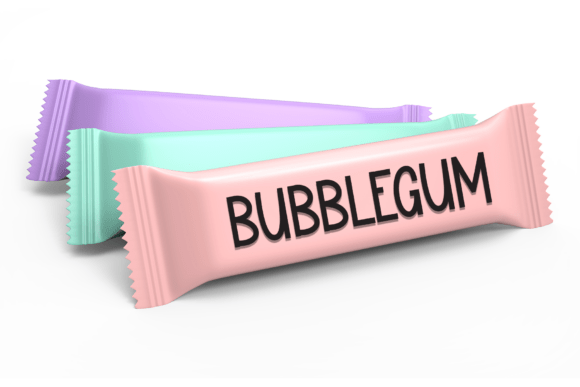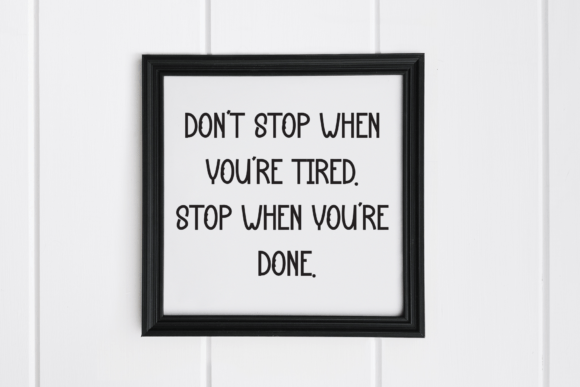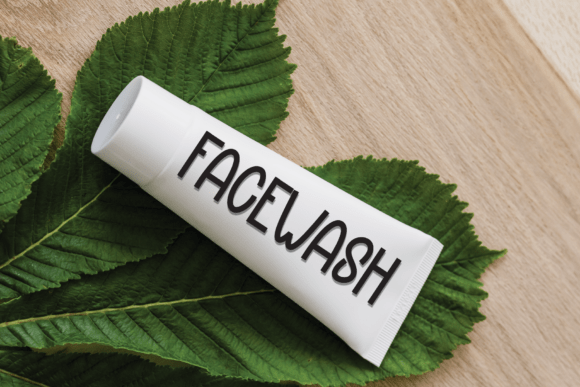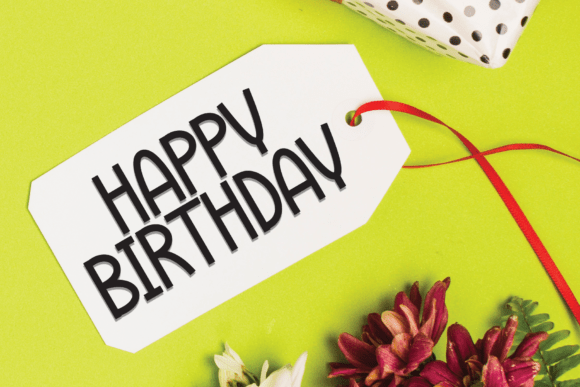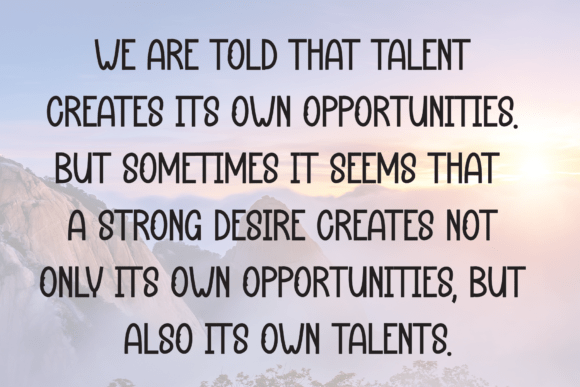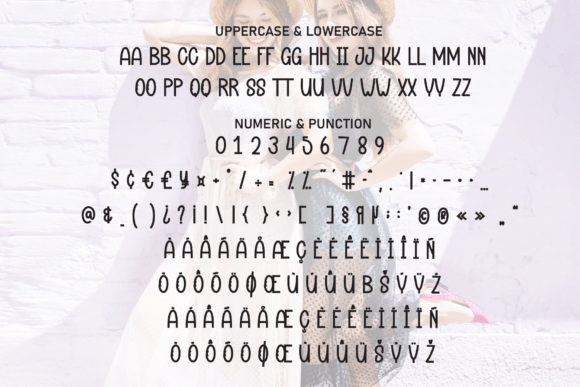
Introduction to Girly Charming Font
Meet our charming creation that exudes warmth and sweetness — the meticulously handcrafted display font.
Overflowing with a delightful blend of cuteness and fun, this piece of artistry is the perfect choice to lend a playful spark to your creative designs Whether it’s enchanting wedding invites or heartwarming cards, our font enhances the joyous mood and uplifts the design aesthetics with an inviting fun vibe.